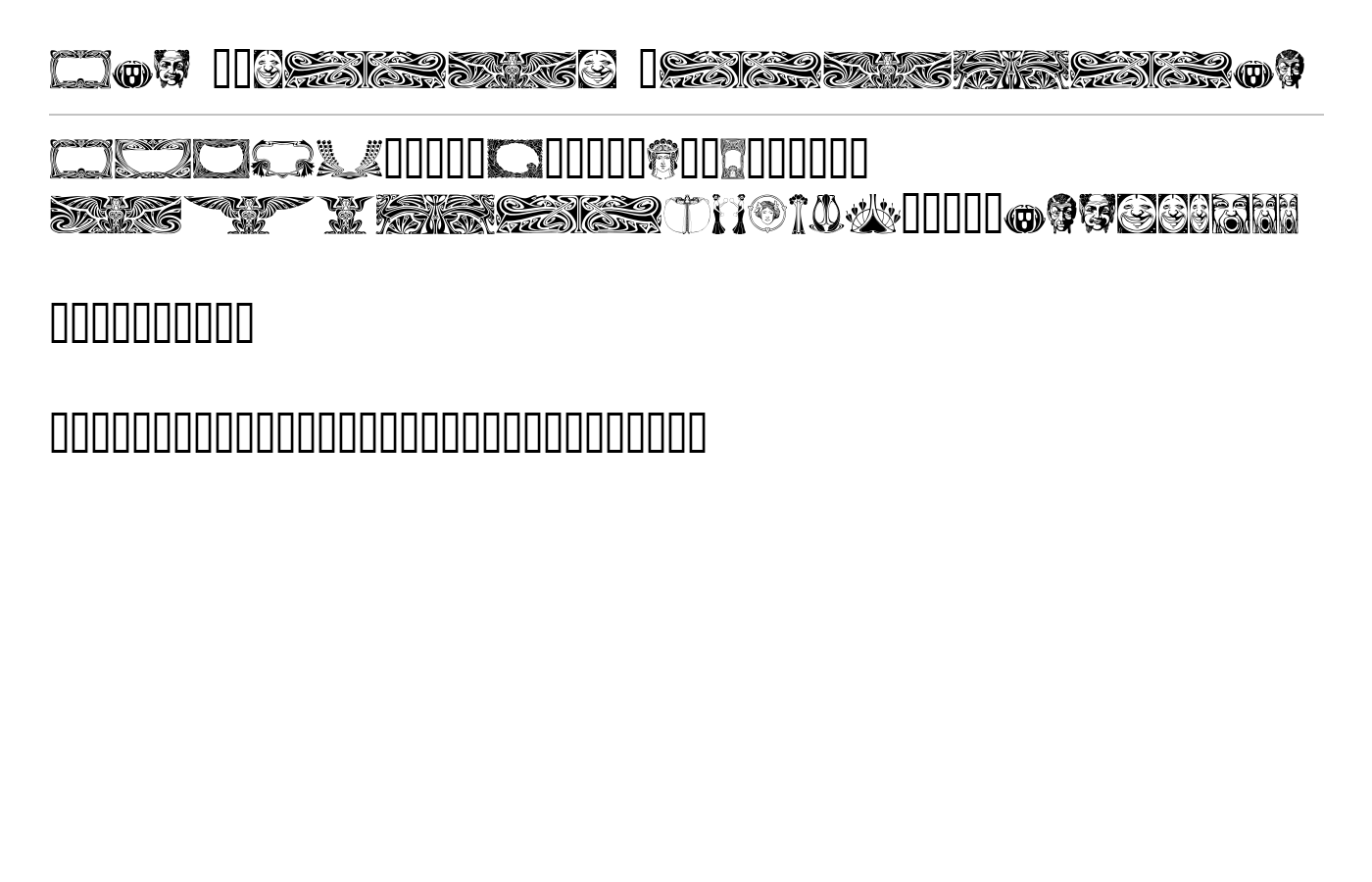
Art Noveau Headers Font features highly decorative, ornamental glyphs inspired by the Art Nouveau style, characterized by intricate floral and curvilinear designs rather than traditional letterforms. This unique font works beautifully for vintage-themed projects, logos, and headlines where a touch of elegance and artistic flair is desired, though it is best suited for display purposes rather than body text due to its detailed and complex shapes.
Art Noveau Headers Font
About Art Noveau Headers Font
| Font family | Art Noveau Headers Font |